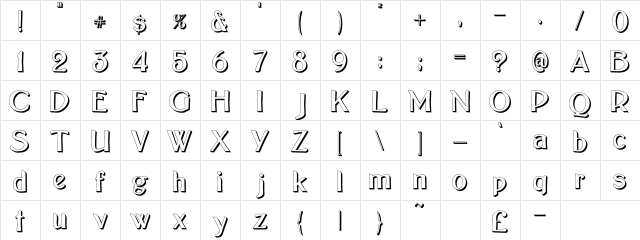
Bolton Sans Embossed Regular
Design Context for Bolton Sans Embossed Typeface
Bolton Sans Embossed offers clean, dependable letterforms without strong stylistic allegiance, making it a practical choice for designers who need flexibility.
Pro Tip: Use Bolton Sans Embossed in both headline and body roles to test its range before committing to a single application.